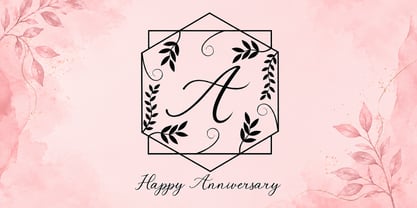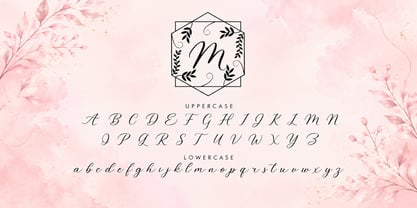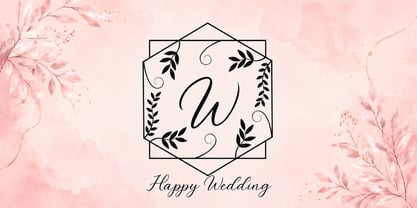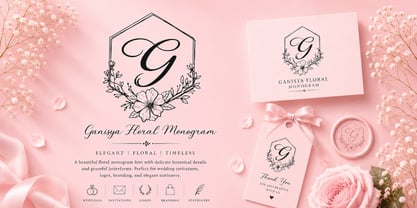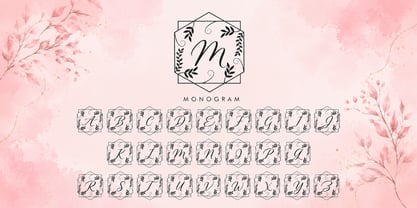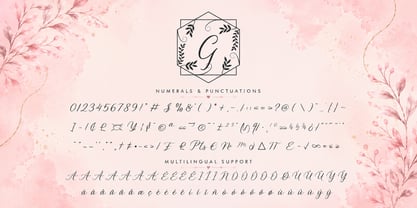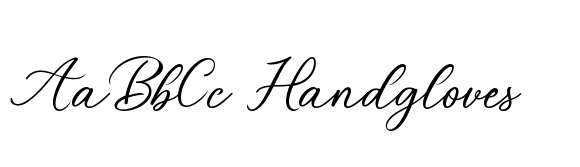
Ganisya Floral Monogram
by Yoga Letter
The Ganisya Floral Monogram Font Family was designed by Isroni Yoga Prasetya and published by Yoga Letter. Ganisya Floral Monogram contains 1 styles. More about this family
Ganisya Floral Monogram is an elegant floral monogram font featuring graceful handwritten letters and a delicate botanical frame. Perfect for wedding invitations, logos, branding, stationery, gift tags, and other personalized designs, this font adds a timeless, romantic, and sophisticated touch to any project. Each character is meticulously designed to create a luxurious and refined look while remaining easy to use.
Designers: Isroni Yoga Prasetya
Foundry: Yoga Letter
Ganisya Floral Monogram